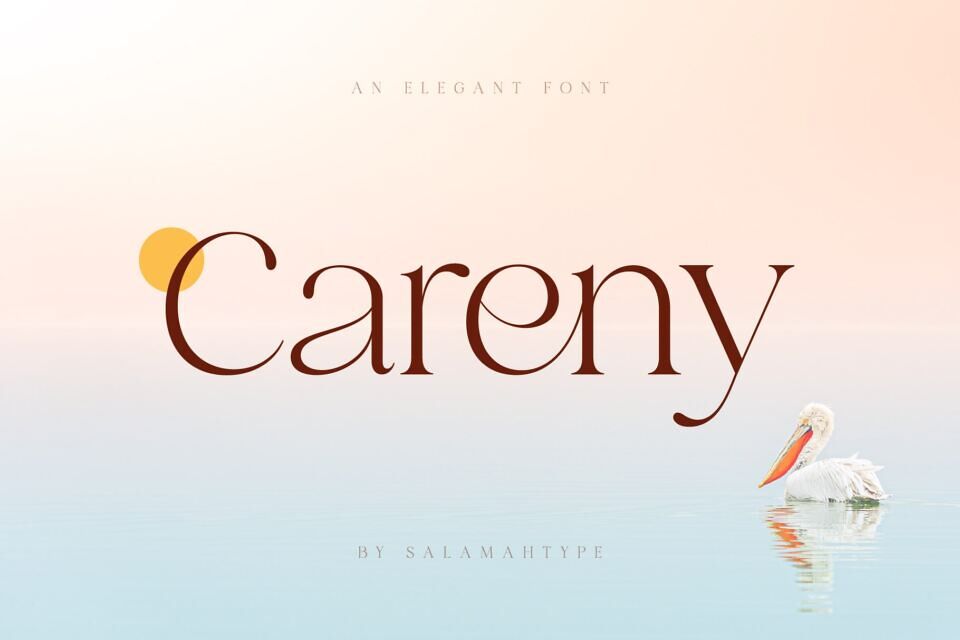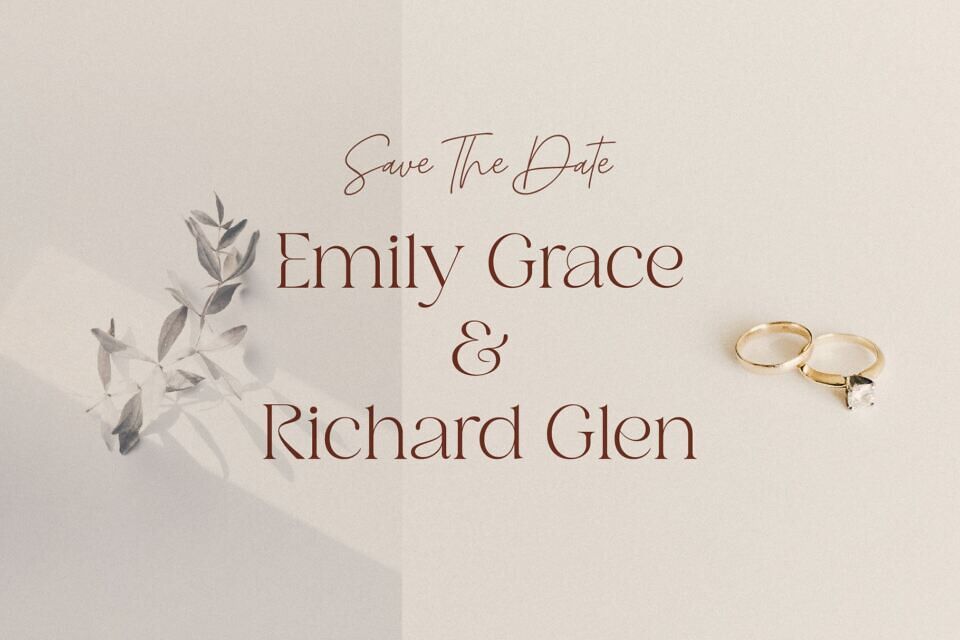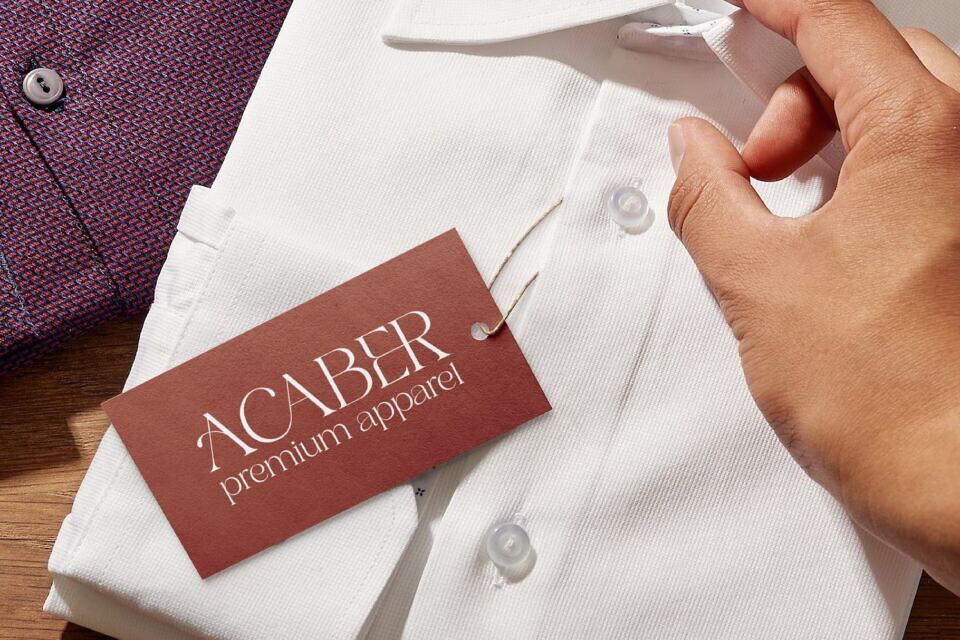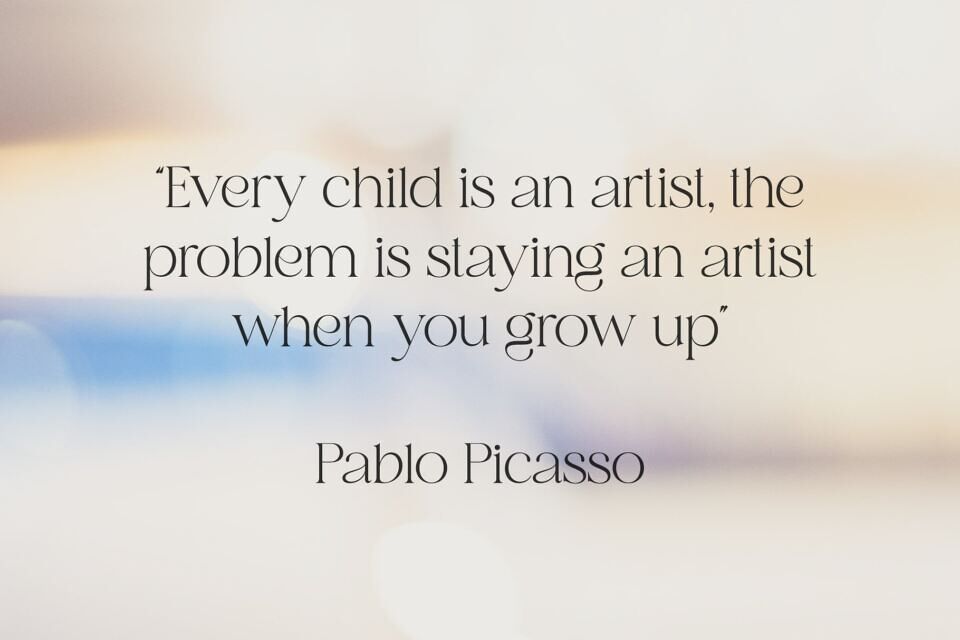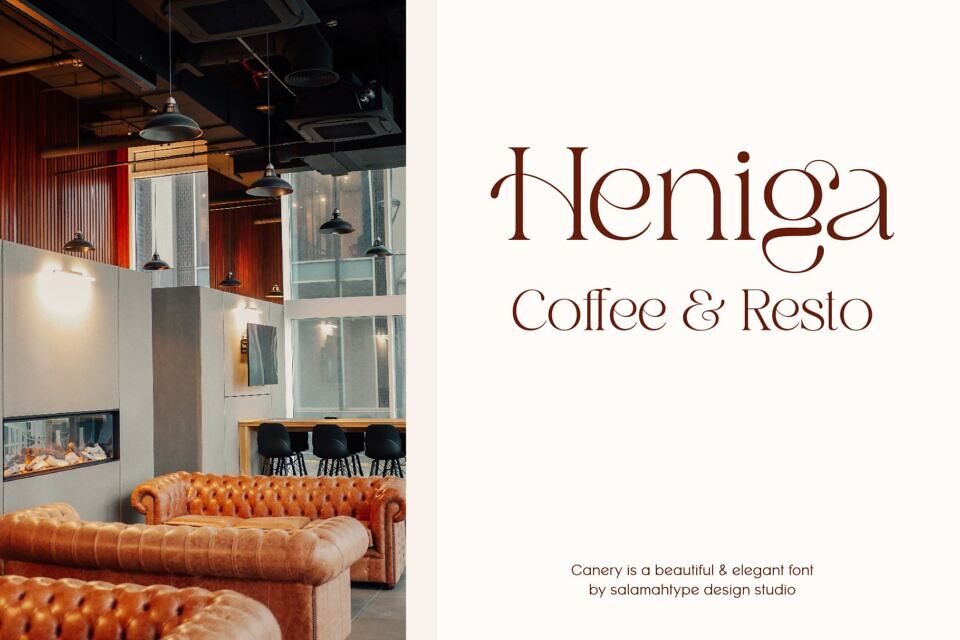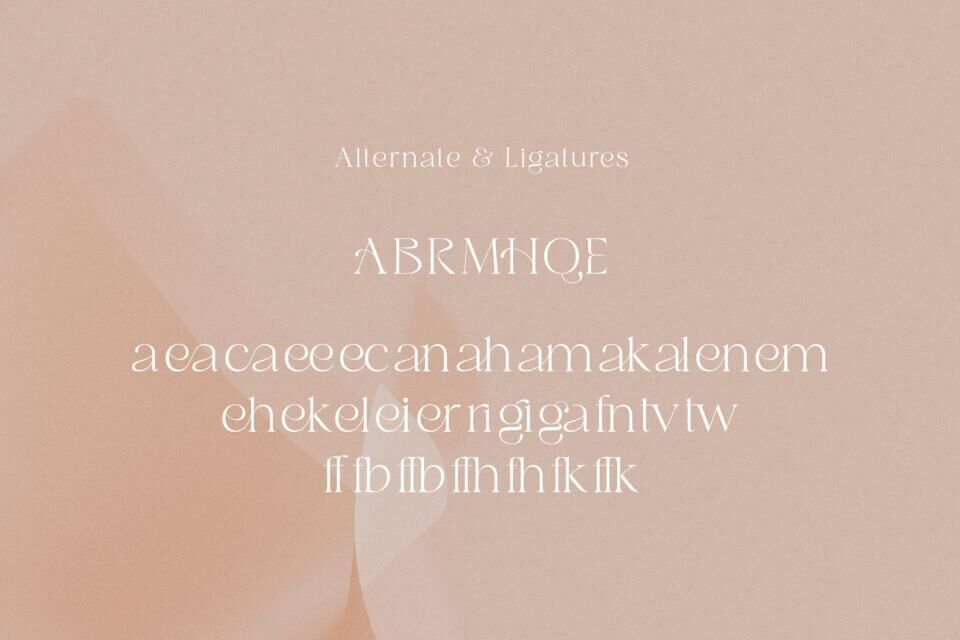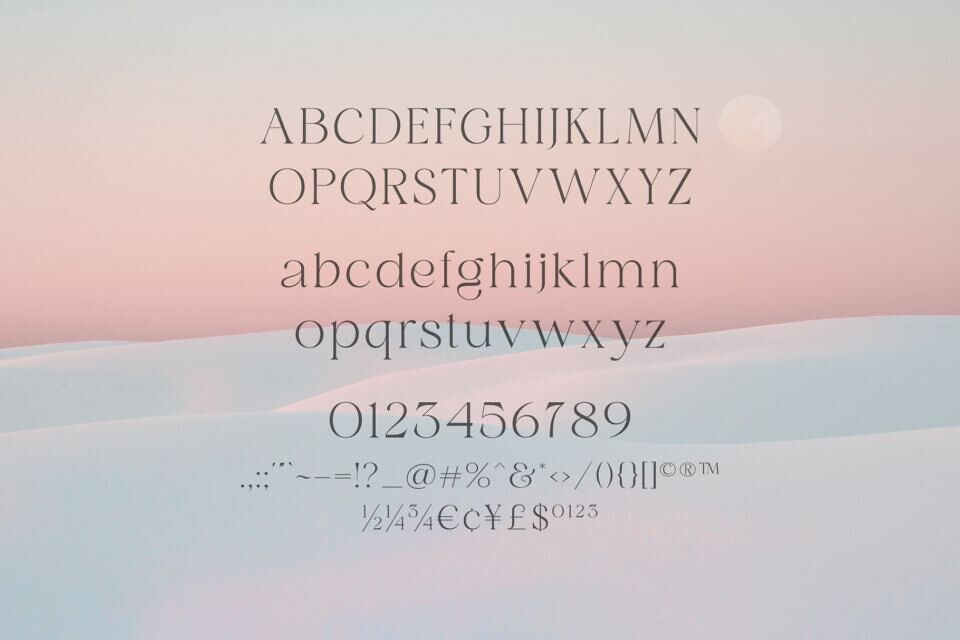
Careny Font
Introducing “Careny”, an elegant and modern typeface. This typeface has a refined look due to its sleek shape and perfect curves. Its modern aesthetic lends a touch of sophistication to any project, from magazine layout to logo branding. Careny is the ideal choice for anyone looking for a versatile and fashionable typeface that effortlessly blends traditional elegance with modern design.
Careny is perfect for branding projects, logos, social media posts, advertisements, product packaging, wedding invitations, product design, labels, photography, watermarks, stationery, and more.